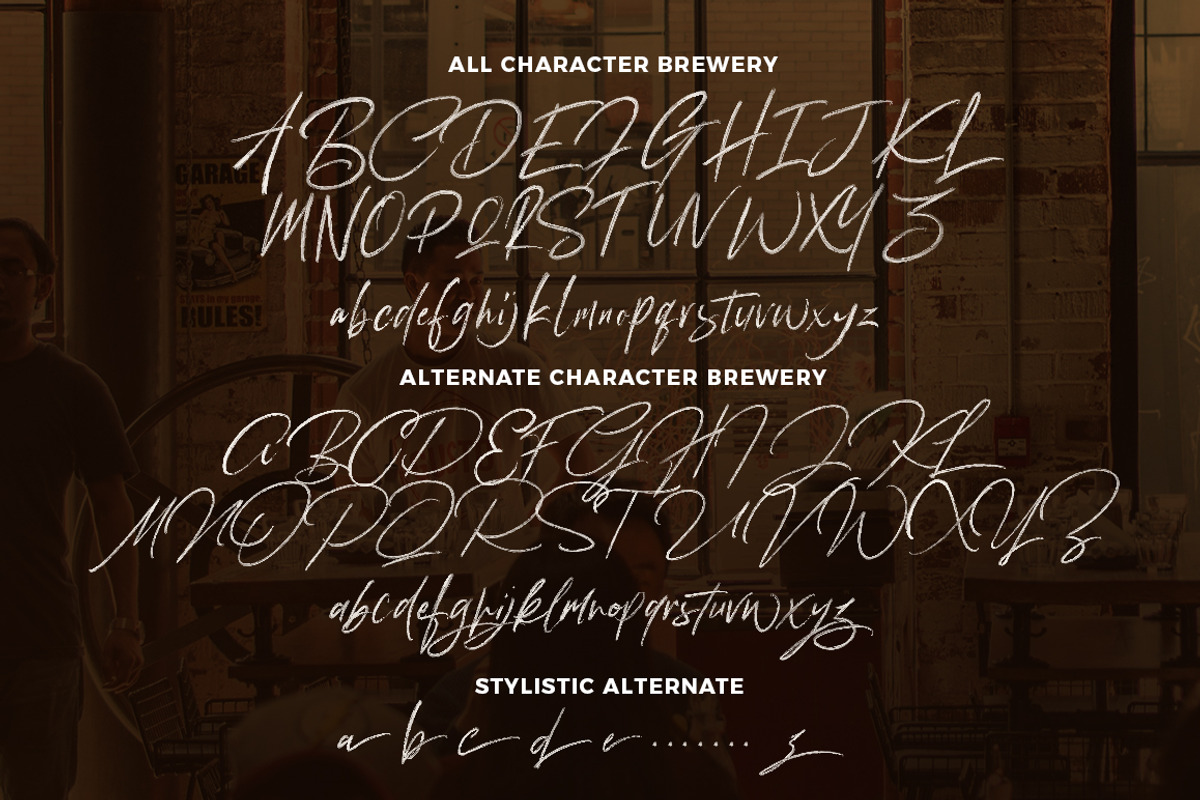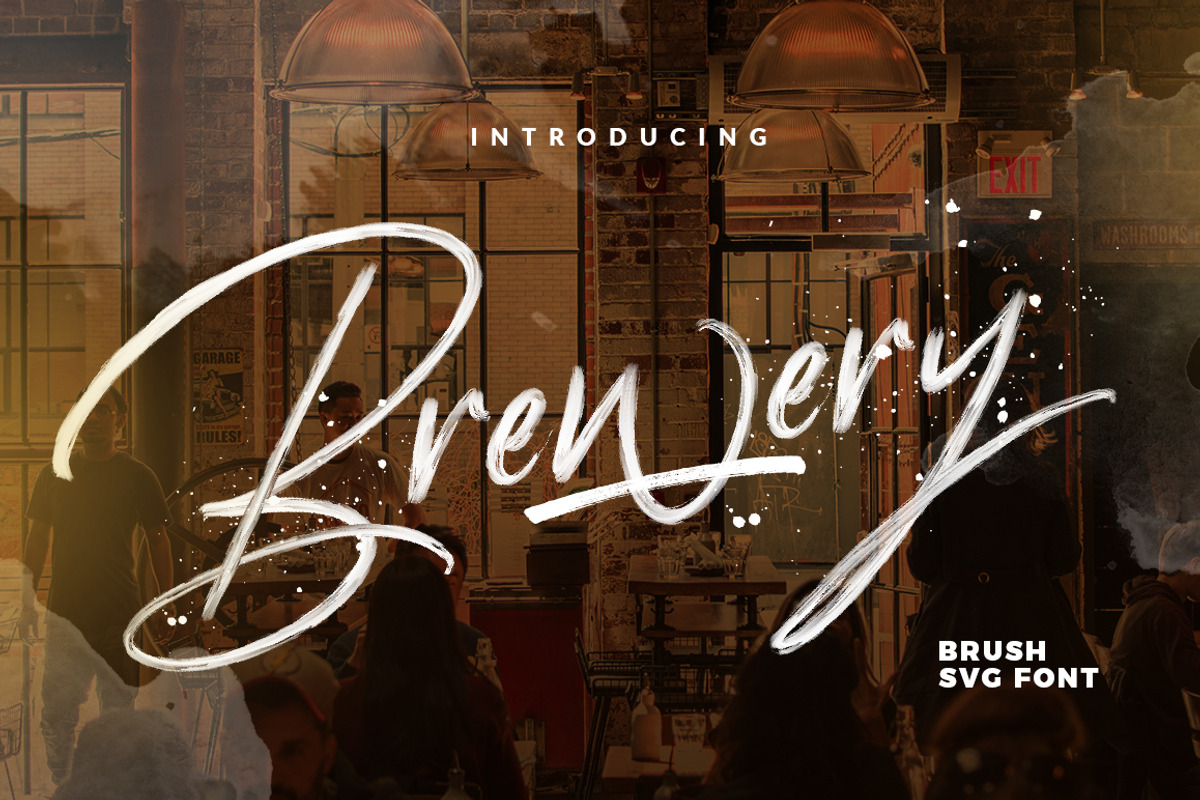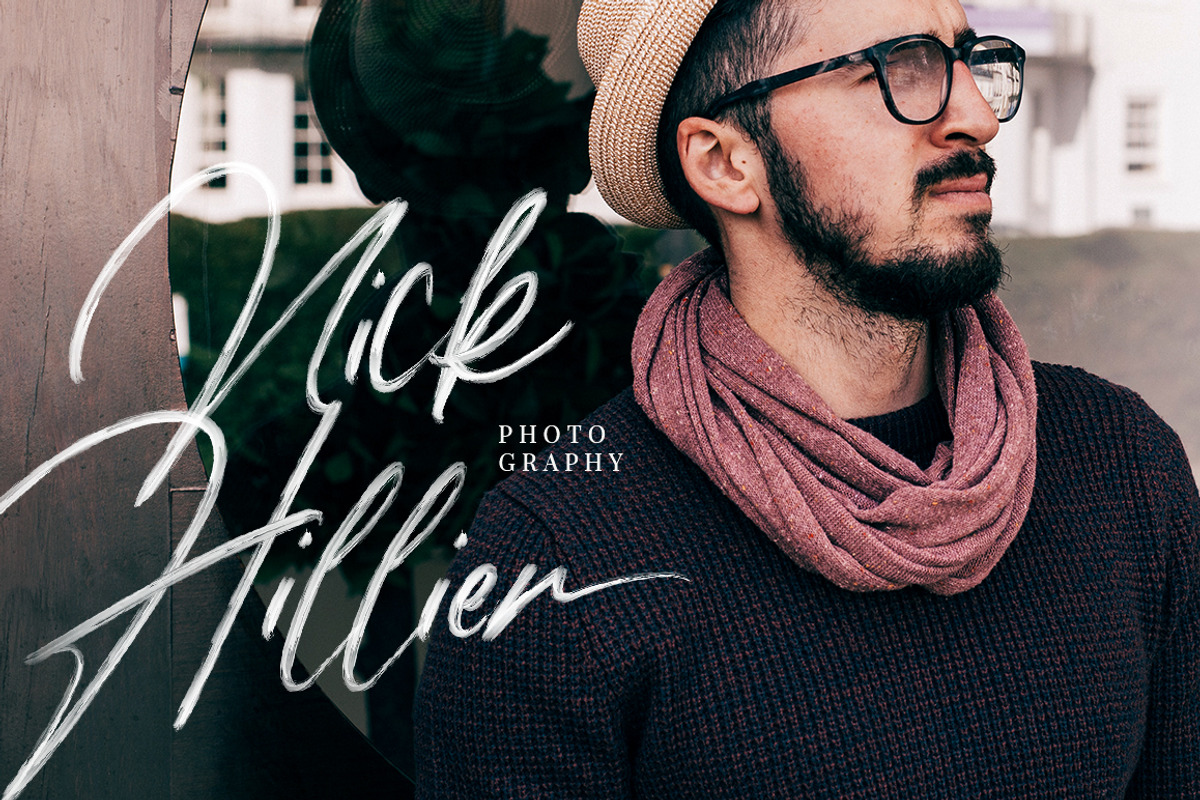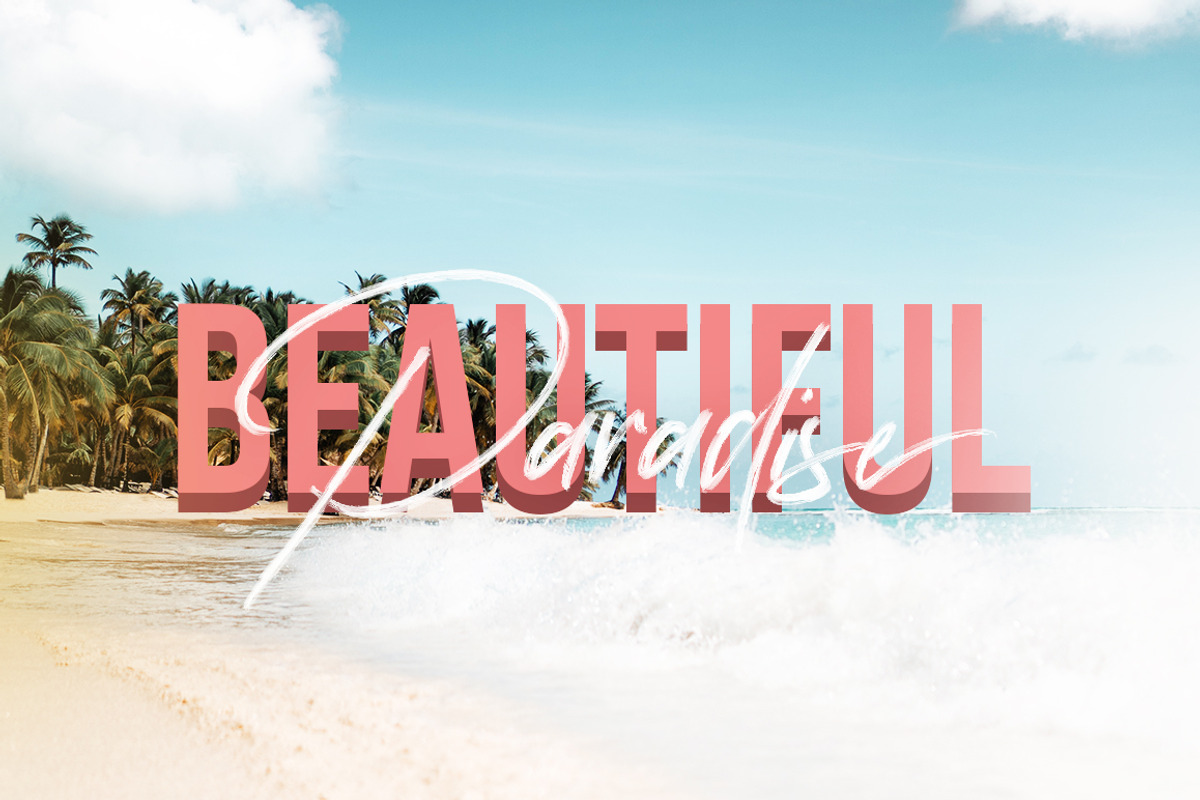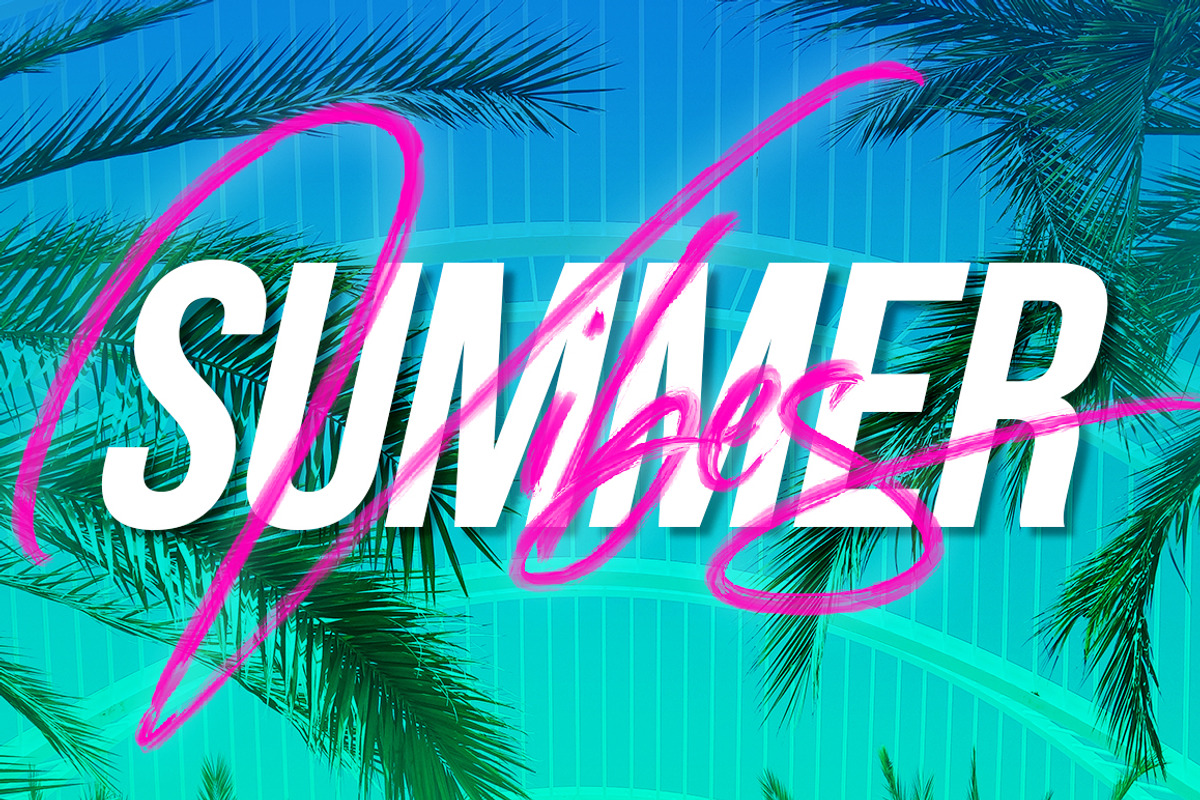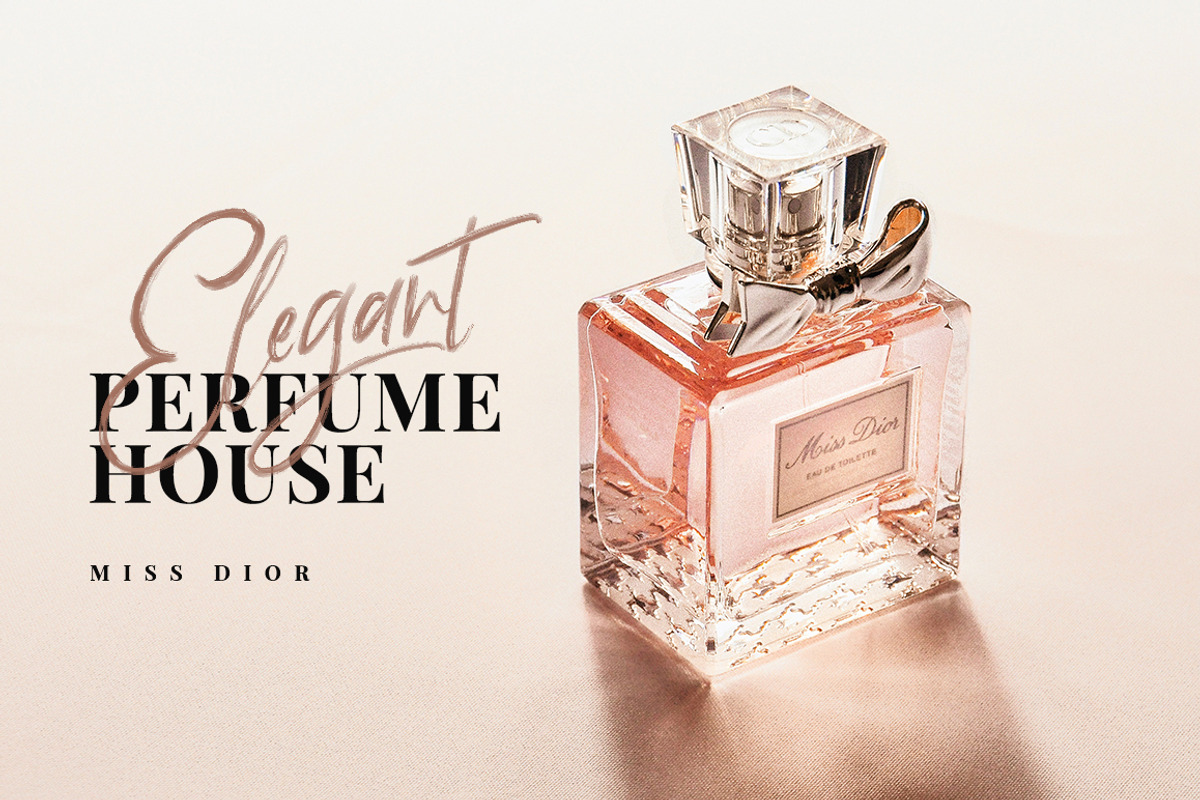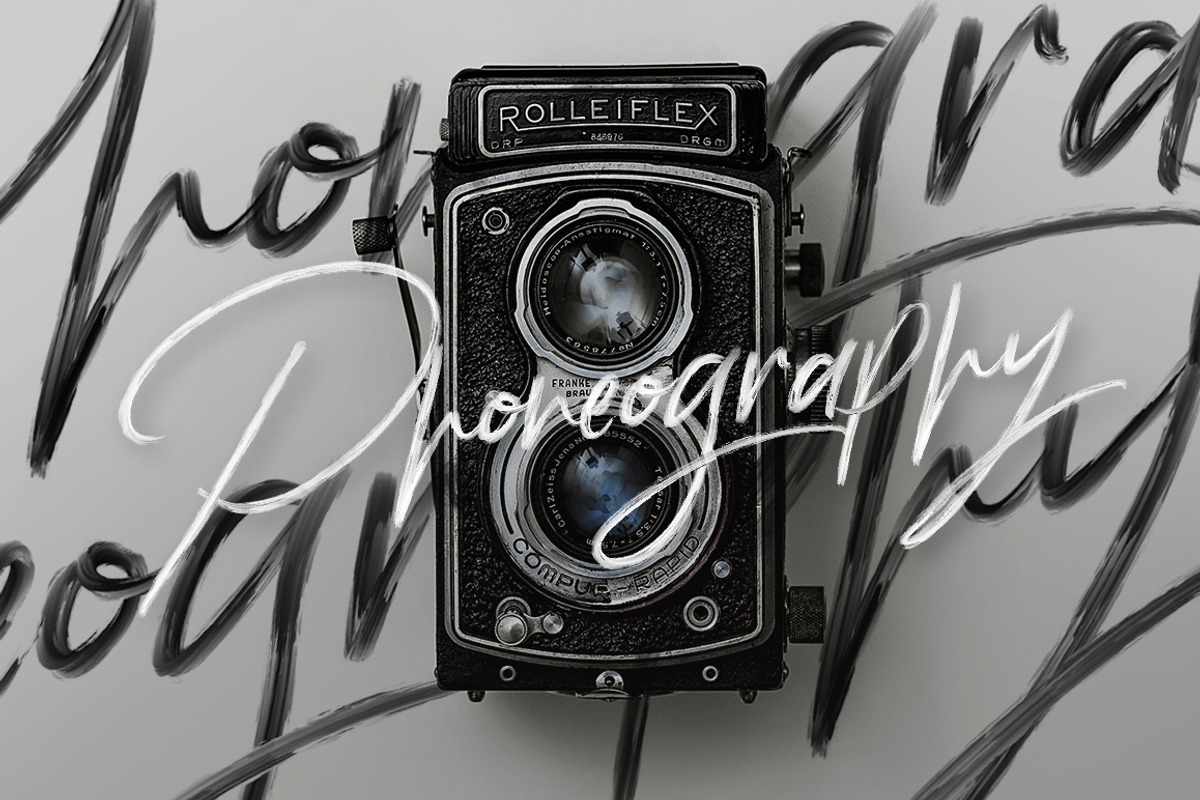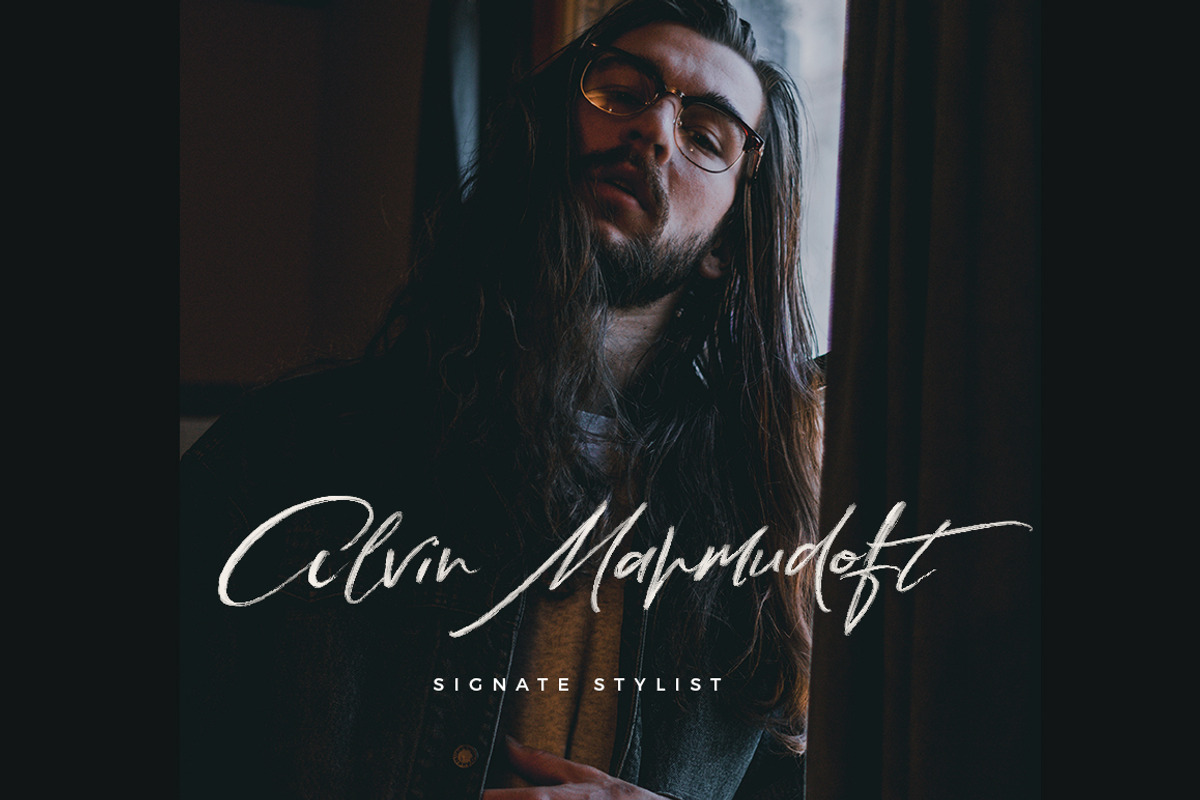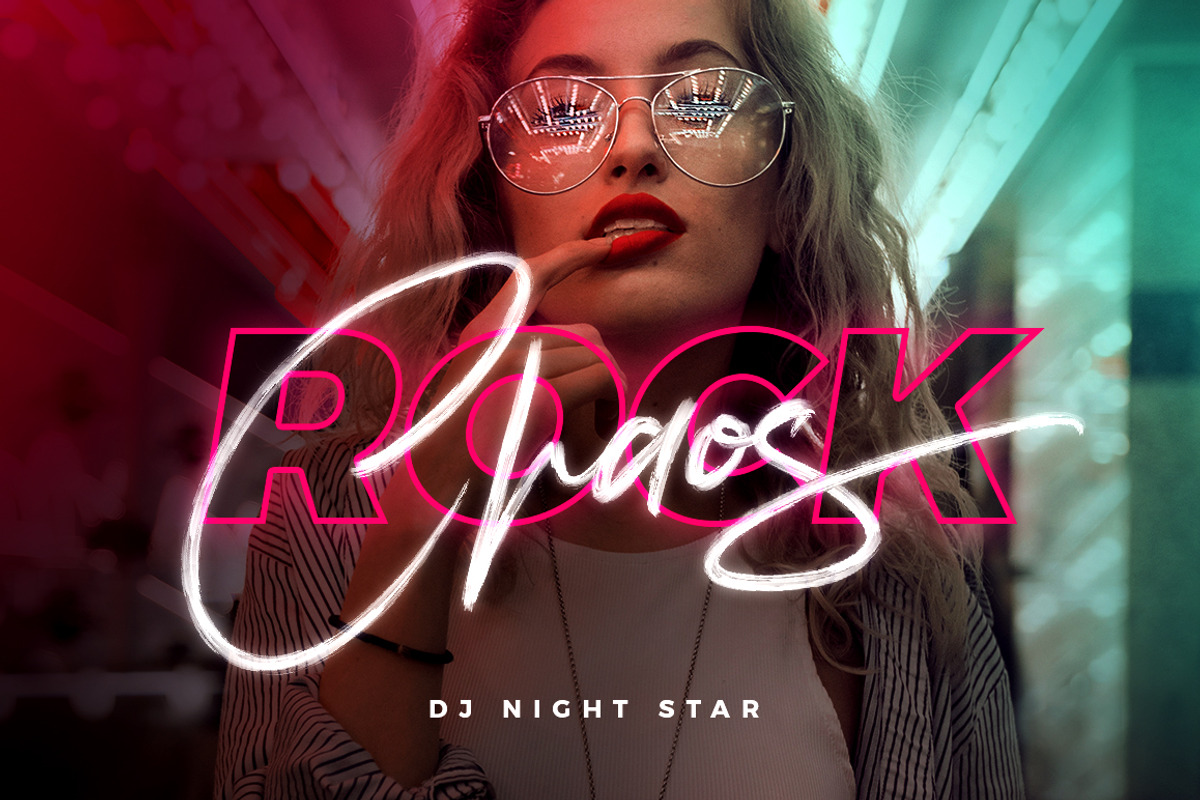
Brewery - SVG FONT ⚡️
Brewery Brush is Stylist Signature SVG font with a real hand-painted wet brush look. Ideal for signature, logos, handwritten quotes, product packaging, header, poster, merchandise, social media & greeting cards.
Brewery SVG Font • Use this version of the script font to re-create stunning hand-lettering with high-definition brush textures, completely built in to the font as a transparency. Requires Photoshop CC 2017 or Illustrator CC 2018 (or newer) to use.